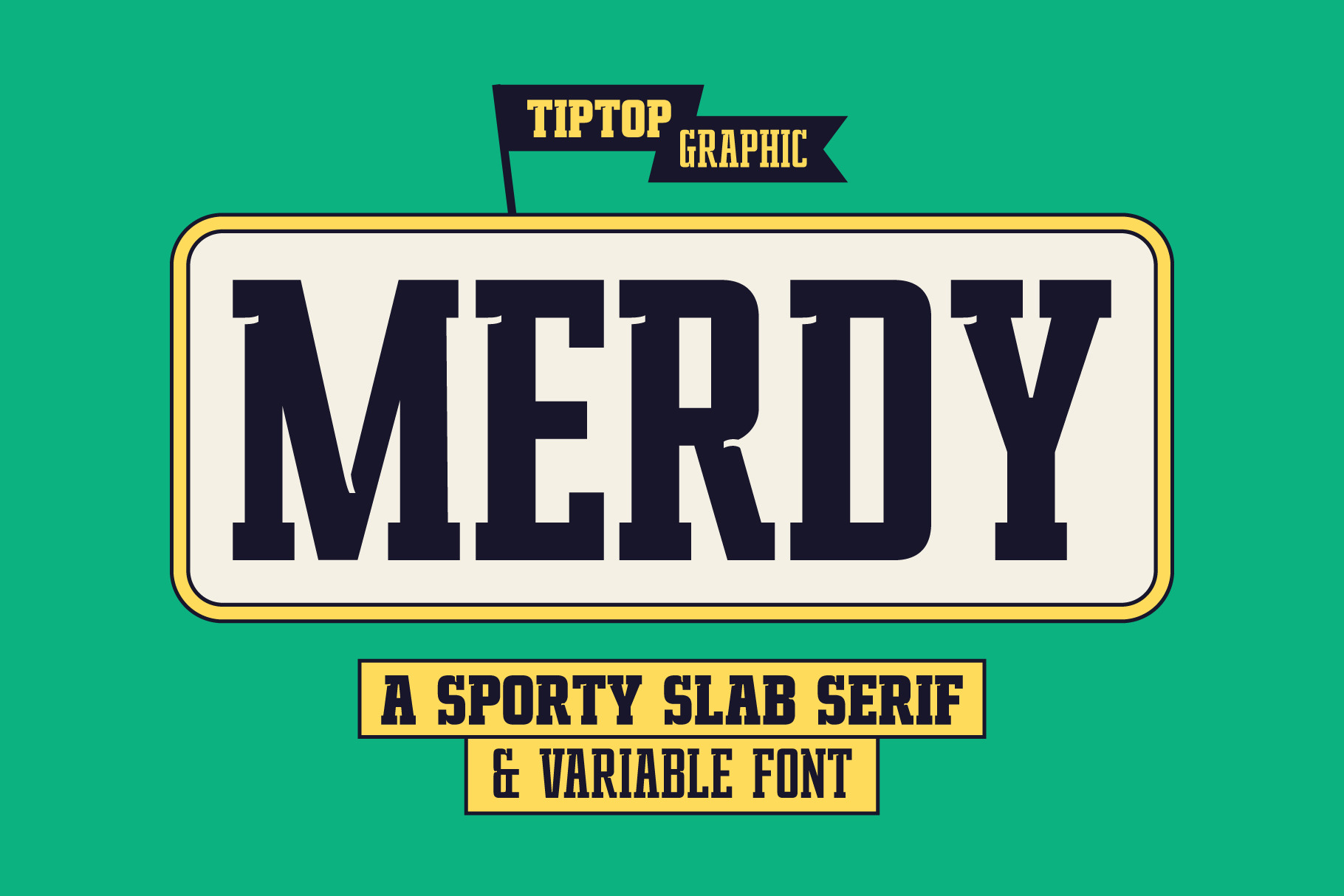
Merdy – Sporty Slab Serif Font
Merdy Sporty is a bold and energetic slab serif font designed to channel vintage athletic vibes with a modern twist. Perfectly suited for team logos, sports apparel, and event branding, this typeface features strong, squared-off serifs and solid letterforms that command attention. Inspired by classic American sports culture, Merdy Sporty is especially ideal for sporty slab baseball themes, where bold visibility and a rugged, competitive feel are essential. Whether you’re creating a retro baseball poster or a collegiate-style jersey, Merdy Sporty brings that timeless, all-star look to your design game.
Merdy – Sporty Slab Serif Font features: -All Caps -Punctuation & Numbers -Variable: Black, Bold, Semi Bold, Extra Bold, Light, Extra Light, Medium, Regular, Thin -Multilingual